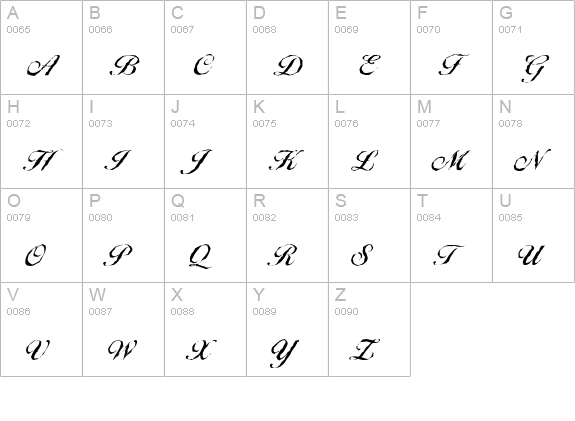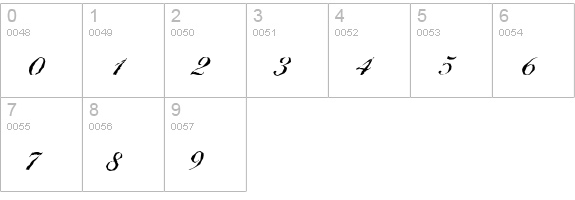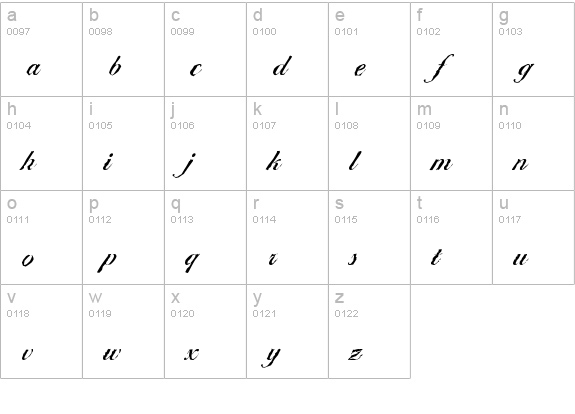
BallantinesAntique-Medium-Regular is a balanced, medium-weight variant in the BallantinesAntique typeface family \xE2\x80\x94 well suited to sub-headlines, navigation, and balanced editorial work.
BallantinesAntique-Medium-Regular font is a timeless and elegant typeface that exudes charm and sophistication. Its antique-inspired design brings a touch of vintage flair to any project, making it perfect for adding a classic touch to invitations, logos, and branding materials. This font features a medium weight that strikes the perfect balance between boldness and readability, making it versatile for a wide range of design applications. Its classic letterforms and graceful serifs give it a refined and traditional look that is both eye-catching and easy to read. Whether you're working on a formal event invitation or a vintage-inspired logo, BallantinesAntique-Medium-Regular font is sure to elevate your design with its timeless appeal. Best of all, this exquisite font is freely available to download at FontsMarket.com, making it accessible to all designers looking to add a touch of elegance to their projects.